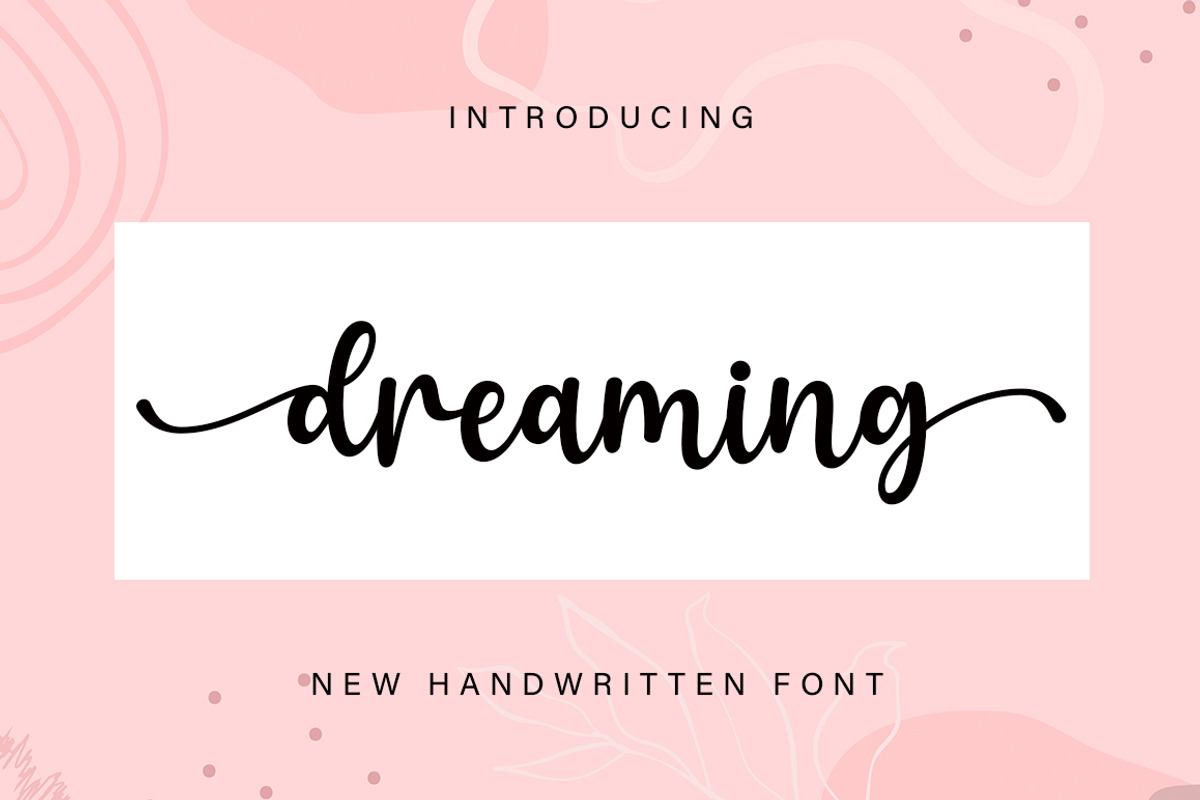
Dreaming Font Free Download is a delicate and whimsical handwritten script typeface designed to evoke a sense of elegance and serenity. With its flowing curves and soft, dreamy strokes, this font is perfect for wedding invitations, greeting cards, branding, social media content, and any project that requires a personal, sophisticated touch.
The font's graceful and airy style gives it a timeless, romantic feel, making it ideal for creative work that seeks to communicate warmth, beauty, and authenticity.